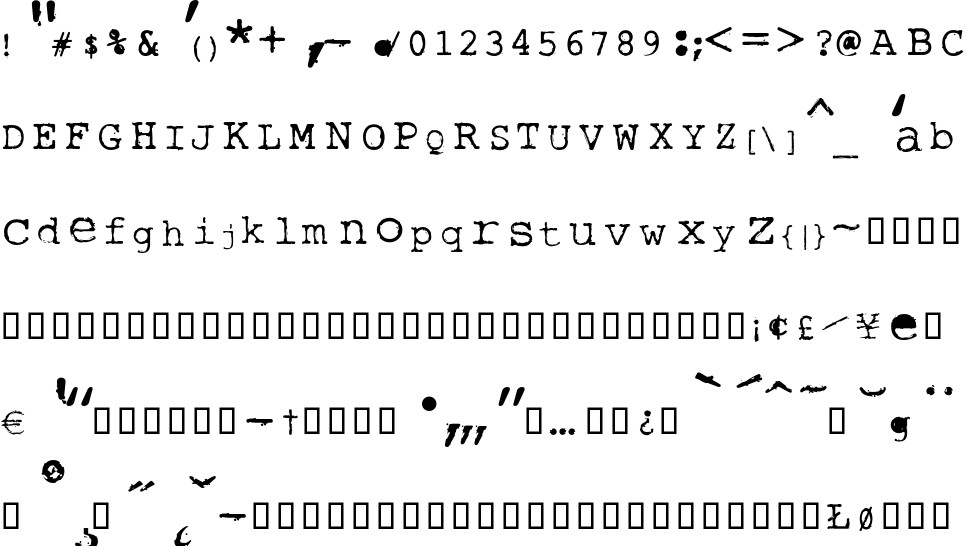
Typewriter Rough Font . The font is licensed as free for personal use. Regular, italic, bold and bold italic. licensed for commercial use. rough typewriter is a fancy, typewriter font designed by jibbajabba fonts. download typewriterrough font free! Download and install the rough. we have %counttypefaces% free %title% to offer for direct downloading · 1001 fonts is your favorite site for free fonts since 2001 Rough typewriter is a fancy type font that can be. rough typewriter is a free font for personal use created by jibbajabba fonts.
download typewriterrough font free! rough typewriter is a fancy, typewriter font designed by jibbajabba fonts. Regular, italic, bold and bold italic. we have %counttypefaces% free %title% to offer for direct downloading · 1001 fonts is your favorite site for free fonts since 2001 licensed for commercial use. Download and install the rough. Rough typewriter is a fancy type font that can be. rough typewriter is a free font for personal use created by jibbajabba fonts. The font is licensed as free for personal use.
Typewriter Rough Font licensed for commercial use. Download and install the rough. licensed for commercial use. download typewriterrough font free! rough typewriter is a free font for personal use created by jibbajabba fonts. Rough typewriter is a fancy type font that can be. Regular, italic, bold and bold italic. rough typewriter is a fancy, typewriter font designed by jibbajabba fonts. The font is licensed as free for personal use. we have %counttypefaces% free %title% to offer for direct downloading · 1001 fonts is your favorite site for free fonts since 2001
70+ Best Typewriter Fonts (FREE / Premium) 2024 Hyperpix Typewriter Rough Font rough typewriter is a fancy, typewriter font designed by jibbajabba fonts. Regular, italic, bold and bold italic. we have %counttypefaces% free %title% to offer for direct downloading · 1001 fonts is your favorite site for free fonts since 2001 Download and install the rough. licensed for commercial use. The font is licensed as free for personal use.. Typewriter Rough Font.
RoughTypewriter font Typewriter Rough Font rough typewriter is a fancy, typewriter font designed by jibbajabba fonts. rough typewriter is a free font for personal use created by jibbajabba fonts. we have %counttypefaces% free %title% to offer for direct downloading · 1001 fonts is your favorite site for free fonts since 2001 Rough typewriter is a fancy type font that can be. Download. Typewriter Rough Font.
Best Typewriter Fonts (FREE / Premium) 2020 Hyperpix Typewriter Rough Font Regular, italic, bold and bold italic. The font is licensed as free for personal use. licensed for commercial use. rough typewriter is a fancy, typewriter font designed by jibbajabba fonts. Download and install the rough. we have %counttypefaces% free %title% to offer for direct downloading · 1001 fonts is your favorite site for free fonts since 2001. Typewriter Rough Font.
70+ Best Typewriter Fonts (FREE / Premium) 2024 Hyperpix Typewriter Rough Font download typewriterrough font free! licensed for commercial use. The font is licensed as free for personal use. rough typewriter is a free font for personal use created by jibbajabba fonts. Rough typewriter is a fancy type font that can be. Regular, italic, bold and bold italic. rough typewriter is a fancy, typewriter font designed by jibbajabba. Typewriter Rough Font.
Typewriter Font Type Font American Typewriter Font Old Typewriter Font Typewriter Rough Font Regular, italic, bold and bold italic. rough typewriter is a free font for personal use created by jibbajabba fonts. we have %counttypefaces% free %title% to offer for direct downloading · 1001 fonts is your favorite site for free fonts since 2001 licensed for commercial use. The font is licensed as free for personal use. Download and install. Typewriter Rough Font.
free typewriter fonts for personal or commercial use Typewriter Rough Font Regular, italic, bold and bold italic. Download and install the rough. we have %counttypefaces% free %title% to offer for direct downloading · 1001 fonts is your favorite site for free fonts since 2001 download typewriterrough font free! licensed for commercial use. Rough typewriter is a fancy type font that can be. The font is licensed as free. Typewriter Rough Font.
Old typewriter fonts selection 2010 Typewriter Rough Font licensed for commercial use. we have %counttypefaces% free %title% to offer for direct downloading · 1001 fonts is your favorite site for free fonts since 2001 Download and install the rough. Regular, italic, bold and bold italic. rough typewriter is a fancy, typewriter font designed by jibbajabba fonts. download typewriterrough font free! The font is licensed. Typewriter Rough Font.
Rough Typewriter Font FreeDaFonts Typewriter Rough Font Download and install the rough. Regular, italic, bold and bold italic. licensed for commercial use. rough typewriter is a free font for personal use created by jibbajabba fonts. download typewriterrough font free! The font is licensed as free for personal use. rough typewriter is a fancy, typewriter font designed by jibbajabba fonts. Rough typewriter is a. Typewriter Rough Font.
20+ Best Classic Typewriter Fonts With Vintage Machine Styles Typewriter Rough Font licensed for commercial use. Rough typewriter is a fancy type font that can be. rough typewriter is a free font for personal use created by jibbajabba fonts. rough typewriter is a fancy, typewriter font designed by jibbajabba fonts. download typewriterrough font free! Regular, italic, bold and bold italic. The font is licensed as free for personal. Typewriter Rough Font.